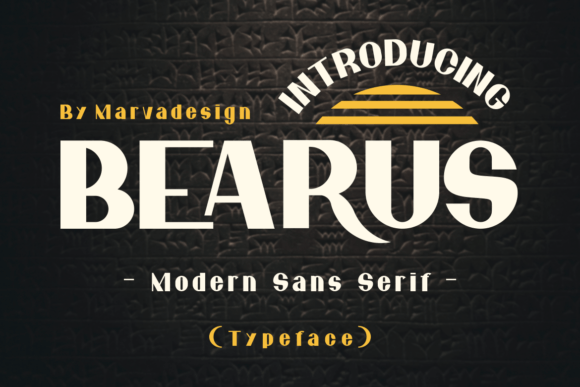
Step into the world of Bearus Font, a modern and captivating sans serif typeface designed by the creative minds at Marvadesign. Embark on a journey where elegance meets functionality, and your designs transform into masterpieces. Bearus Font is not just a font; it's an expression of your creativity, a tool that amplifies your vision, and a catalyst for creating a lasting impact.
With its clean lines, harmonious curves, and impeccable kerning, Bearus Font exudes a sophisticated charm that elevates your designs to new heights. Whether you're a seasoned designer or just starting, Bearus Font will effortlessly enhance your craft. Experience the joy of creating with a font that understands the nuances of letterforms, ensuring your message is conveyed with clarity and style.
Dive into the limitless possibilities that Bearus Font offers. Its versatility knows no bounds, making it the perfect choice for branding, logo design, poster creation, and digital marketing. Let your imagination soar as you craft captivating headlines that demand attention, design logos that leave an unforgettable impression, and create posters that ignite conversations. Bearus Font is the key to unlocking your creative potential and unleashing your design prowess.
But Bearus Font is more than just a beautiful typeface; it's a font with a soul. Embedded within its digital DNA is the passion and dedication of its creators, who poured their hearts and minds into crafting each letterform. With every download, you become a part of the Bearus Font family, a community of designers who appreciate the art of typography and strive for excellence in their work.
So, embark on this creative journey with Bearus Font as your trusted companion. Discover the joy of designing with a font that speaks to your soul and empowers you to create designs that resonate with your audience. Let Bearus Font be the spark that ignites your creativity and propels your designs to greatness.